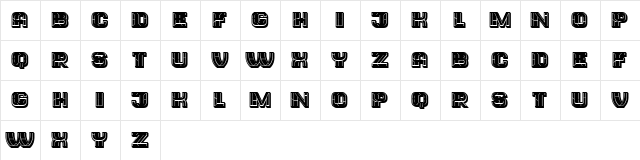
Trader Filled Regular
Design Context for Trader Filled Typeface
Trader Filled is a composed and adaptable typeface that performs quietly and consistently across a wide range of design contexts.